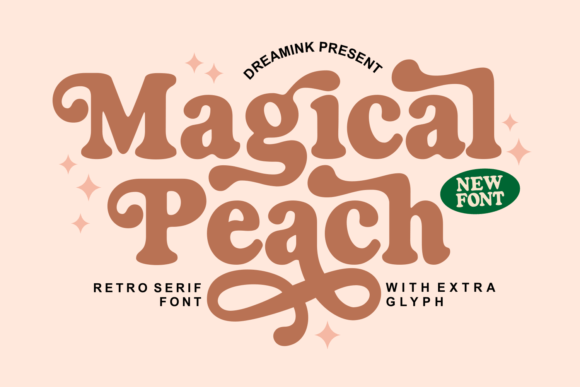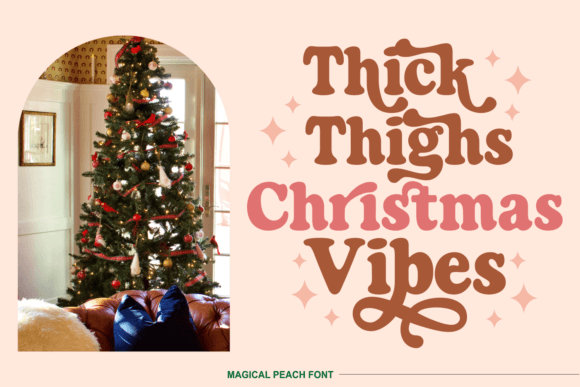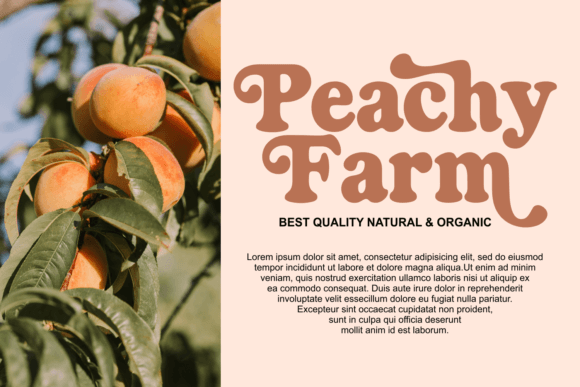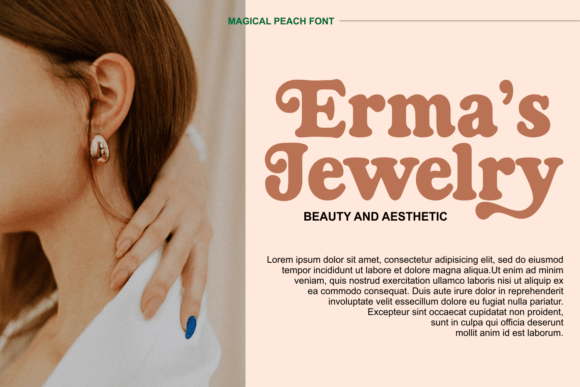
Magical Peach Font: Bold Retro Serif for Eye-Catching Logo Design
About the Magical Peach Font
Presenting Magical Peach Font, a unique and stylish typeface that will make your work stand out. Magical Peach is a bold retro serif font that effortlessly captures the essence of vintage charm. Its robust, confident letterforms evoke a sense of nostalgia, while the serifs add a touch of sophistication. This font brings a timeless and bold aesthetic to your designs, making it perfect for creating eye-catching headlines, logos, or any project where you want to infuse a hint of retro magic. With its distinctive character, Magical Peach adds a touch of personality to your text, making it stand out with a unique and memorable flair.
Magical Peach Font Usage Examples
Magical Peach Font Example